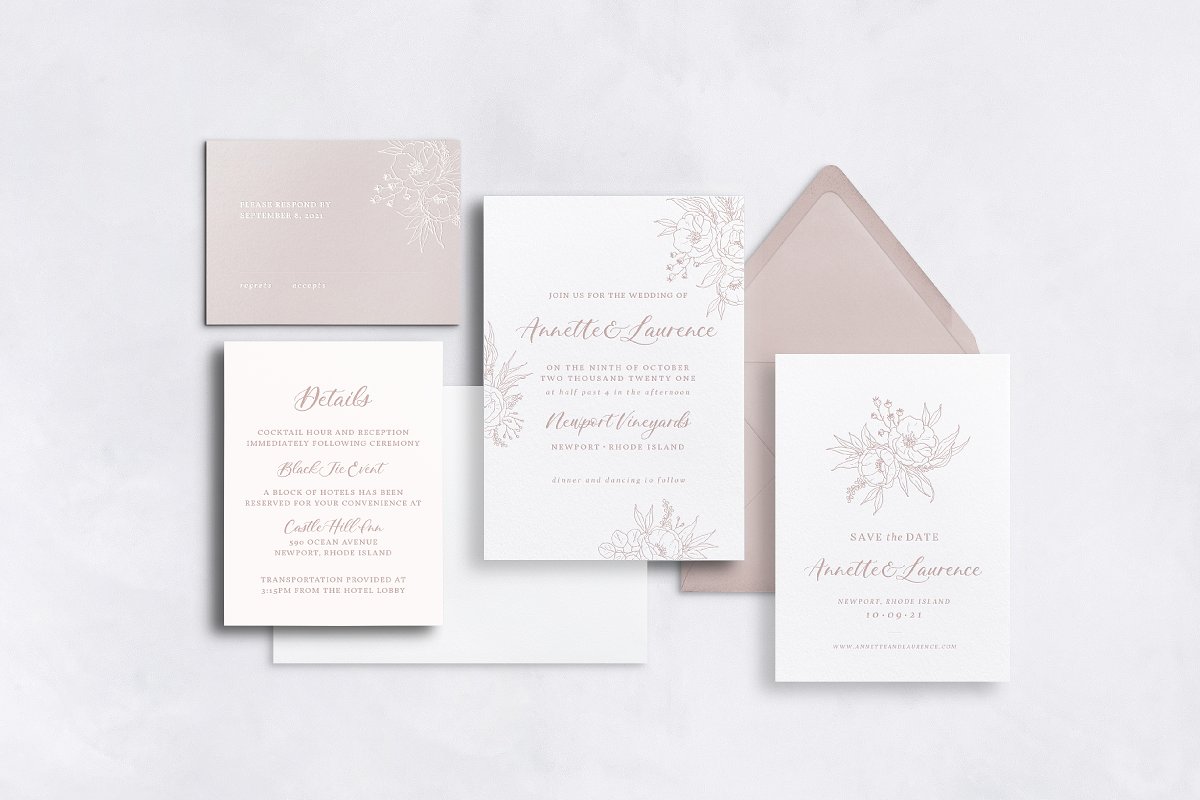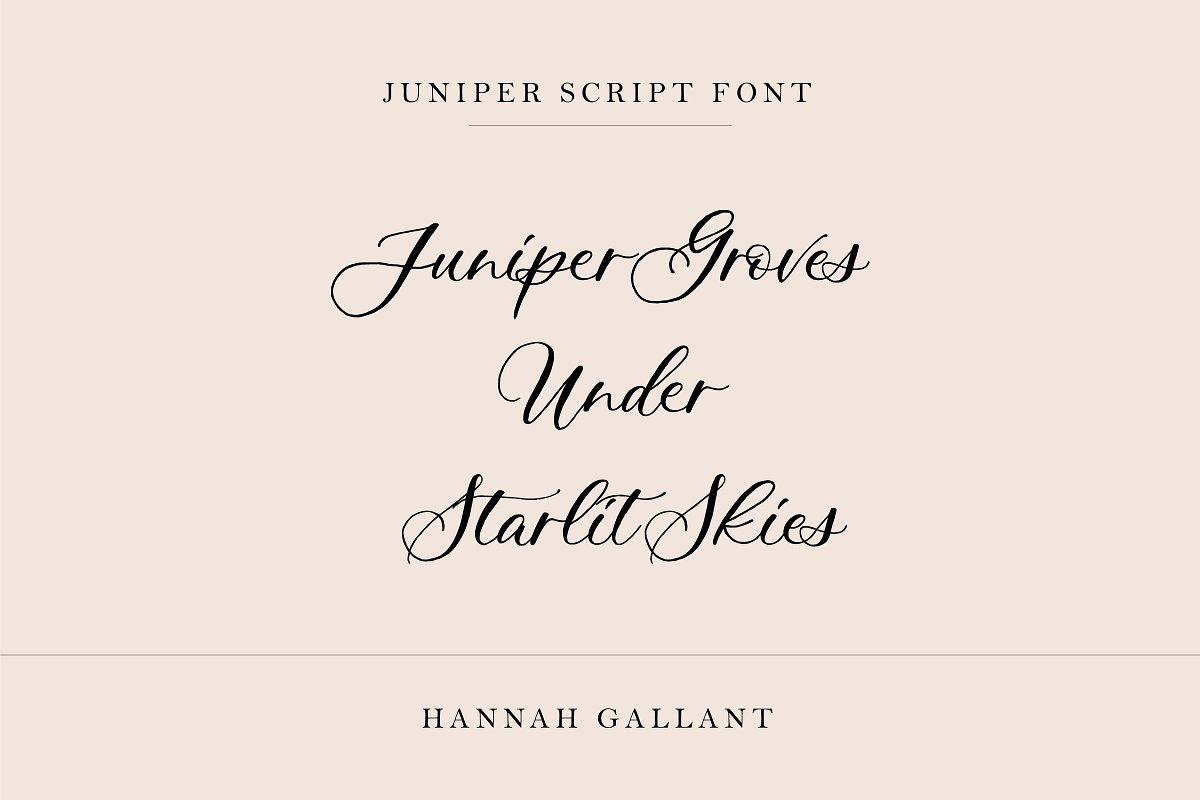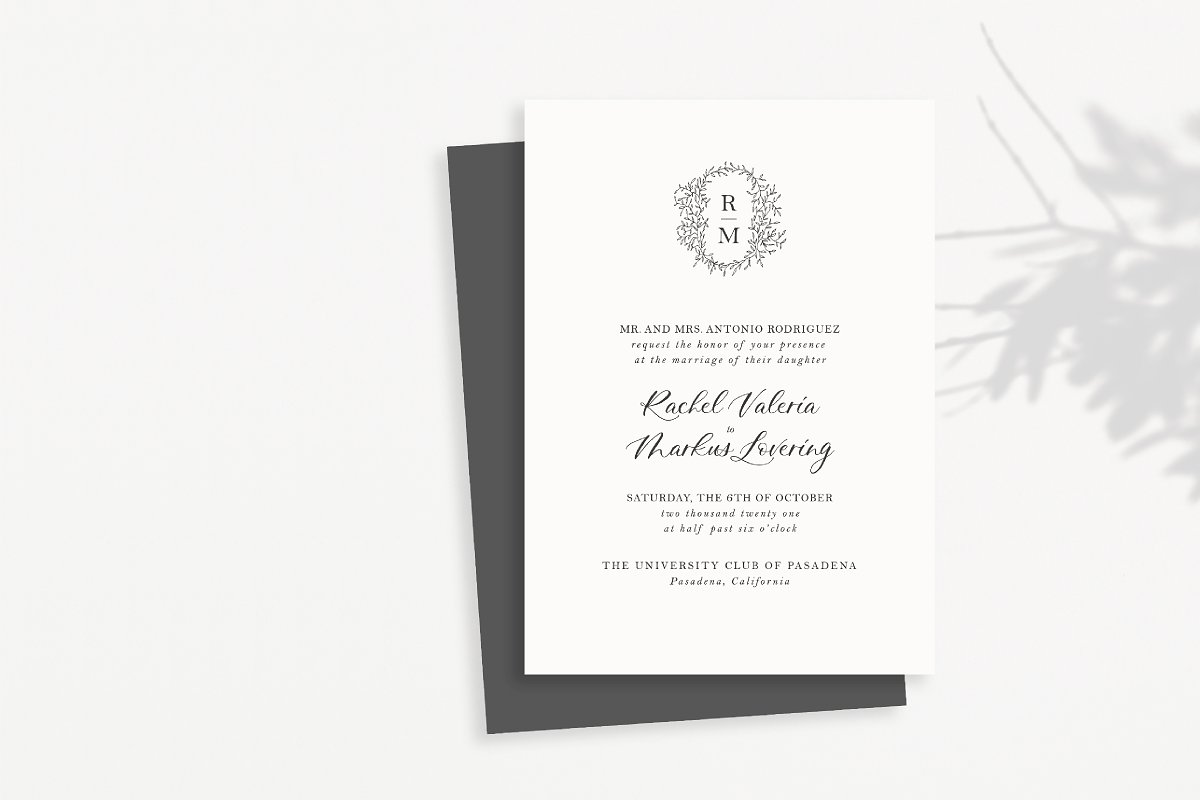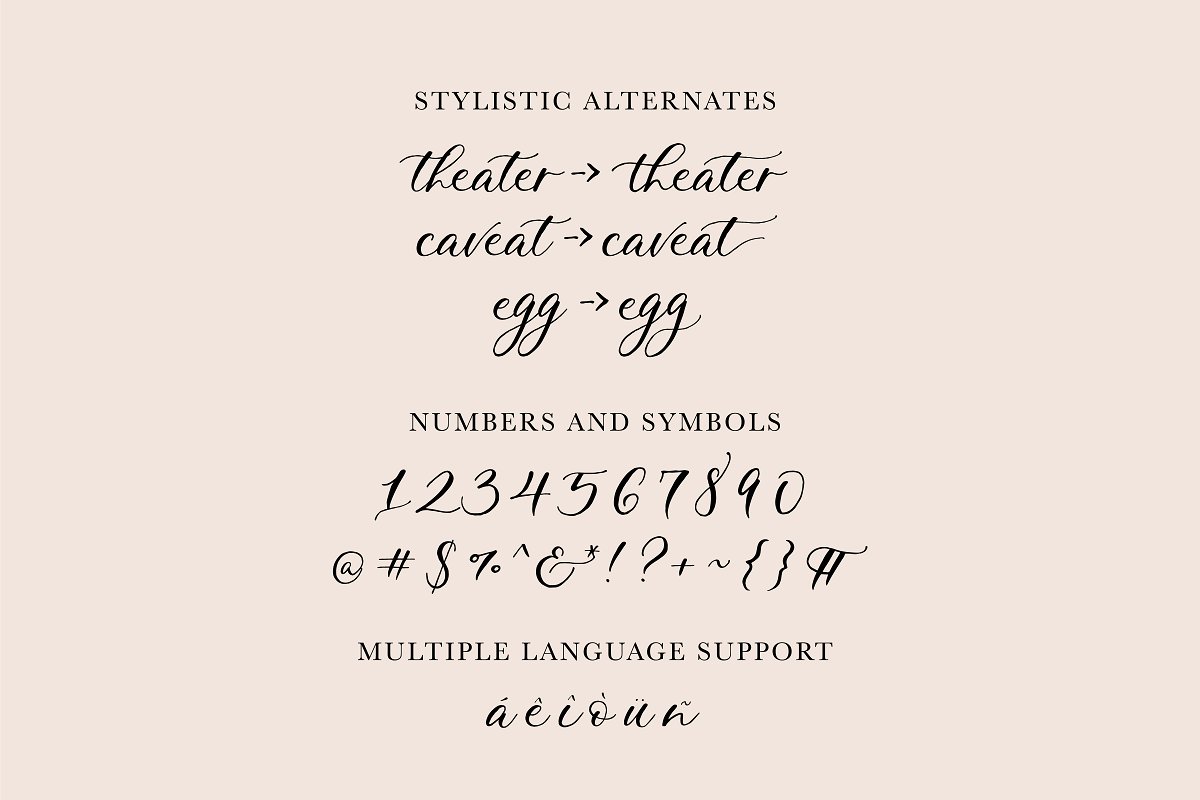
About the Juniper Script Font
Introducing Juniper Script font, This script font is based on one of my signature calligraphy styles, It’s perfect for wedding invitations, formal events, art prints and so much more, Included in your download is:Lowercase Alternates: Lowercase alternates and swashes for letters such as t, y, j, tt, and more, Ligatures: Automatic ligatures, including tt, th, gg, ll, and more
Multi-Language Support: Accents for multiple languages included,